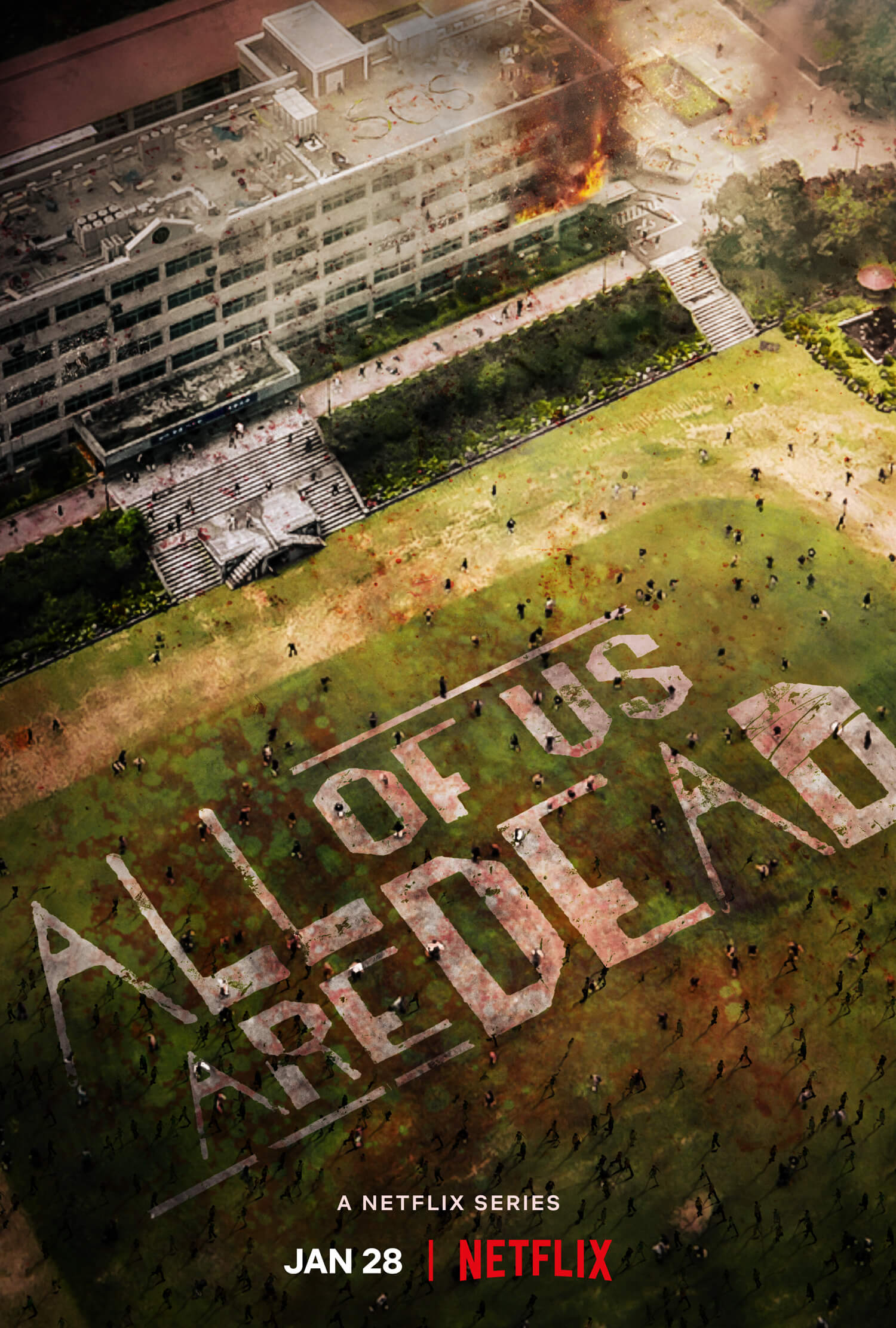
All of Us Are Dead Font
ActionAll of Us Are Dead (지금 우리 학교는) is a South Korean television series that follows a group of high school students as they struggle to survive a zombie outbreak that occurs during their school day. The show is based on the webtoon "Now at Our School" by Joo Dong-Geun.
FF Folk Regular is the font used in the title, which was created by Italian designer Maurizio Osti and American designer Jane Patterson. The font is based on the Folk Alphabet lettering by Ben Shahn and has a rough display style.